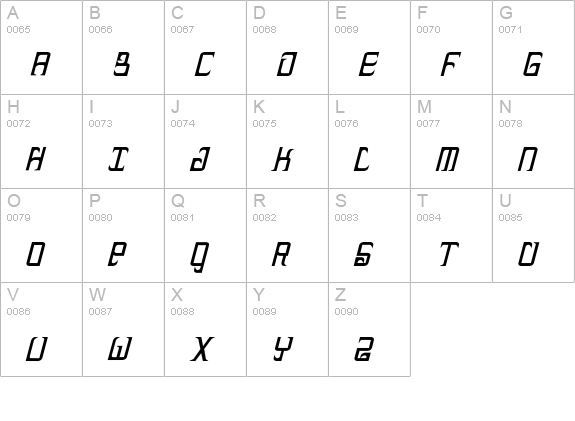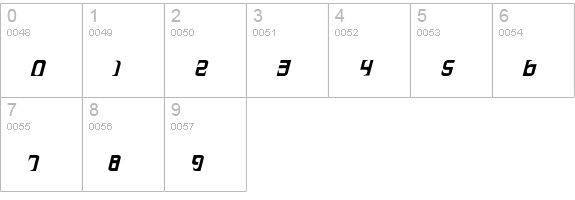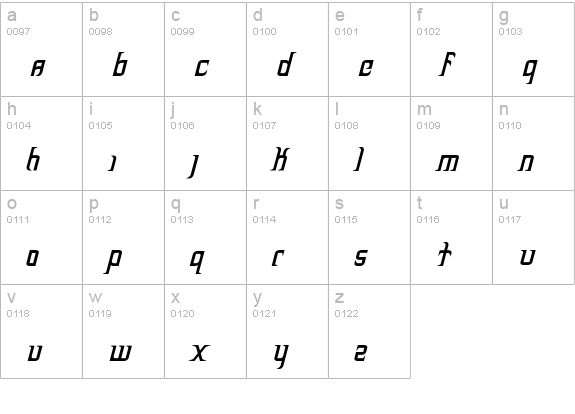
Heckler-BoldItalic Font Details
Introducing Heckler-BoldItalic, a captivating and expressive font that adds an extra touch of elegance and sophistication to any design project. This remarkable typeface showcases a unique blend of boldness and italics, creating a perfect balance between strength and grace. Designed with meticulous attention to detail, Heckler-BoldItalic exudes a sense of confidence and flair. Its bold strokes command attention, while the graceful slant of the italics adds a touch of fluidity and charm. The result is a font that effortlessly captures the essence of modernity and style. But what makes Heckler-BoldItalic truly exceptional is that it is not only visually striking, but also freely available. In collaboration with FontsMarket.com, this font can be easily downloaded and enjoyed at no cost. This accessibility allows designers, creatives, and enthusiasts alike to effortlessly incorporate this stunning typeface into their projects, without any limitations or barriers. Whether it's designing eye-catching logos, crafting captivating headlines, or adding a touch of sophistication to invitations and greeting cards, Heckler-BoldItalic is the perfect choice. Its versatility and timeless appeal make it suitable for a wide range of applications, ensuring that your designs will always stand out and make a lasting impression. So why settle for ordinary when you can elevate your designs with Heckler-BoldItalic? Download this remarkable font today at FontsMarket.com and unleash your creativity with this free, yet truly priceless, typographic gem.